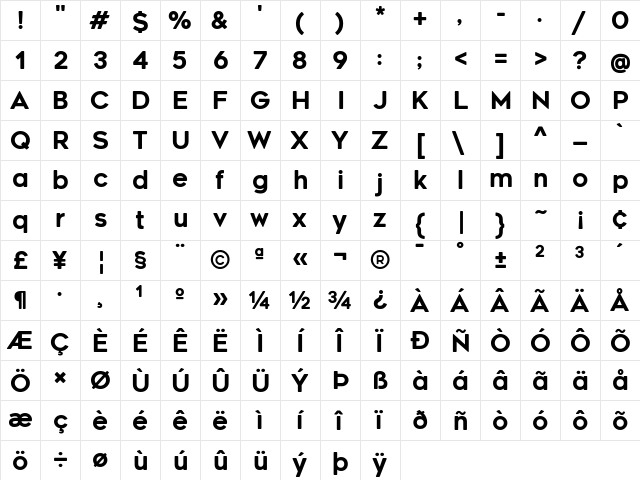
Renogare Soft Regular
| Foundry | Deepak Singh Dogra |
| Designer | Deepak Singh Dogra |
Design Context for Renogare Soft Typeface
Renogare Soft takes a measured approach to typography — its balanced proportions and neutral character make it a reliable workhorse for both digital and print work.